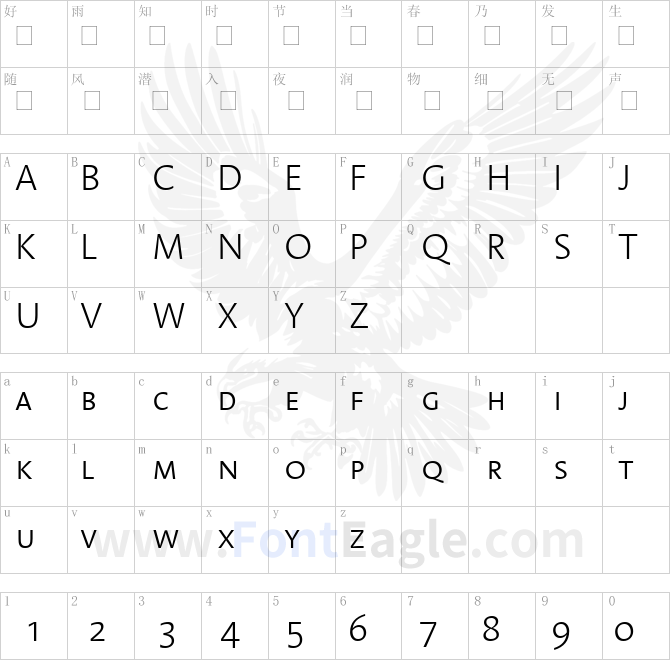
Linotype-Aroma-Light-SC is a great font, widely used in graphic design, single-page menu design, poster design and other fields, and is deeply loved by designers.Linotype-Aroma-Light-SC download.